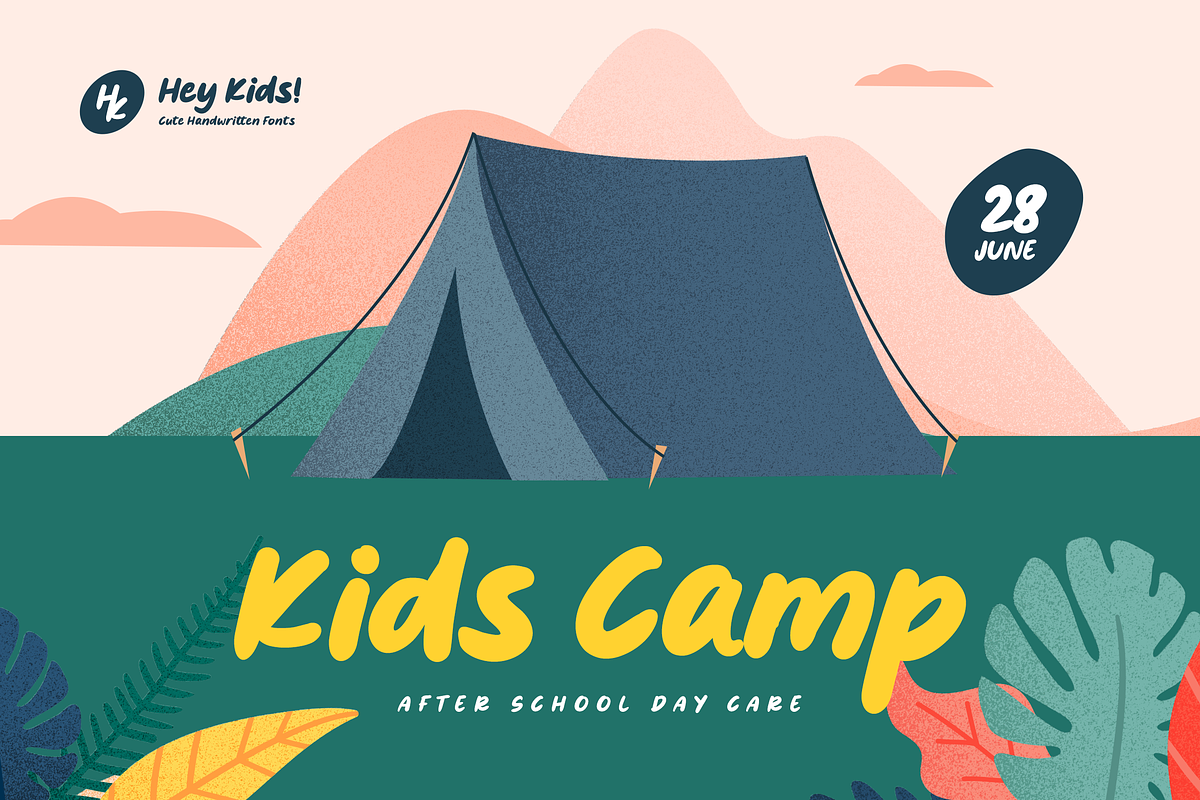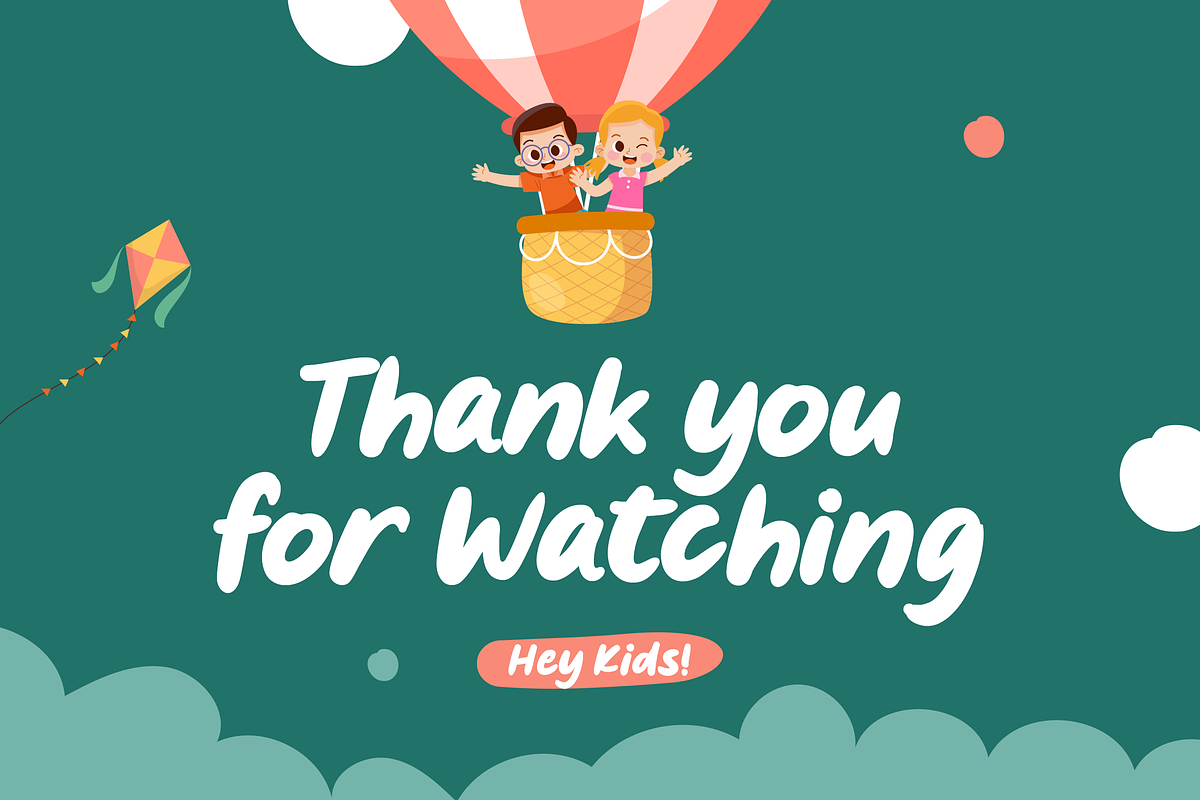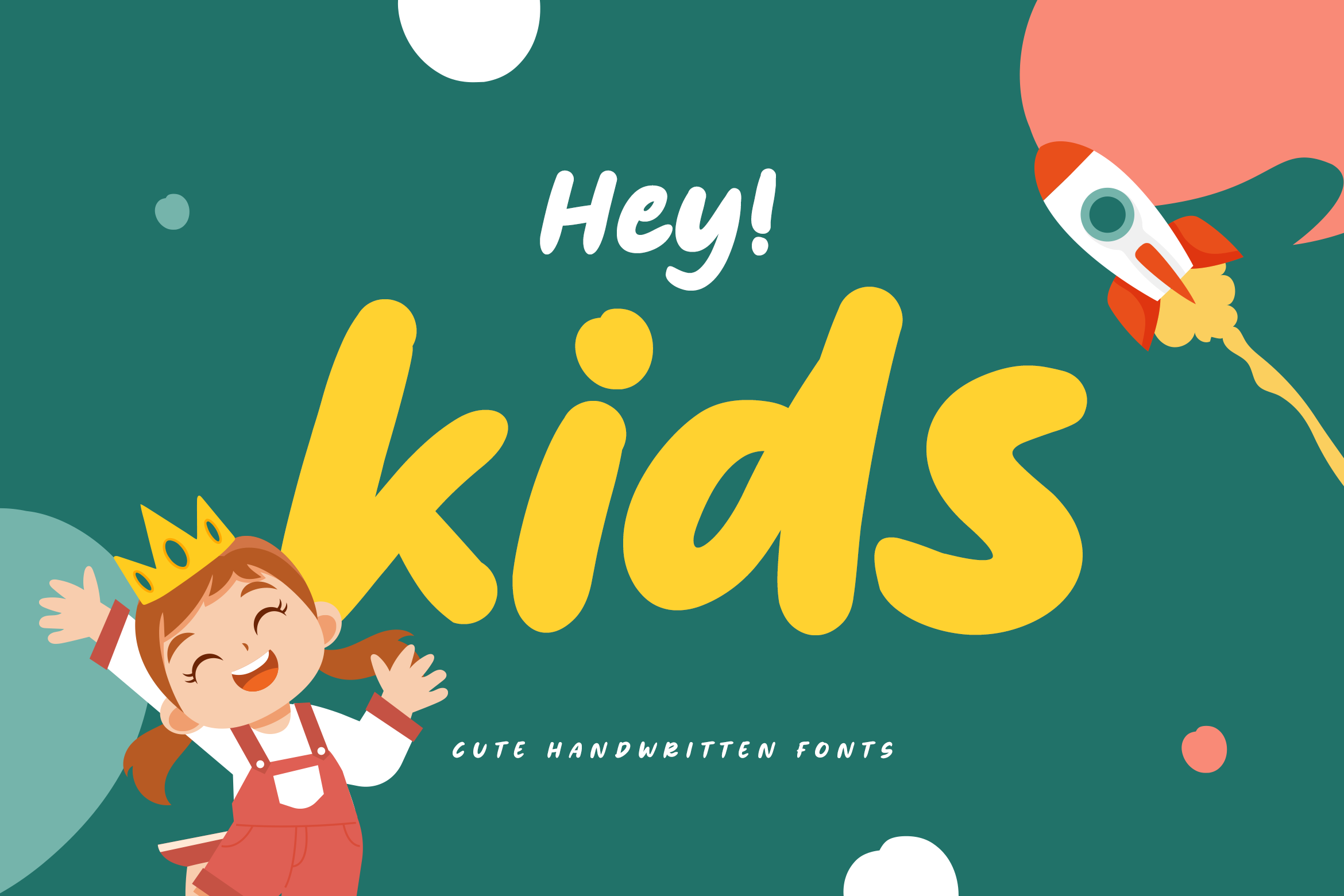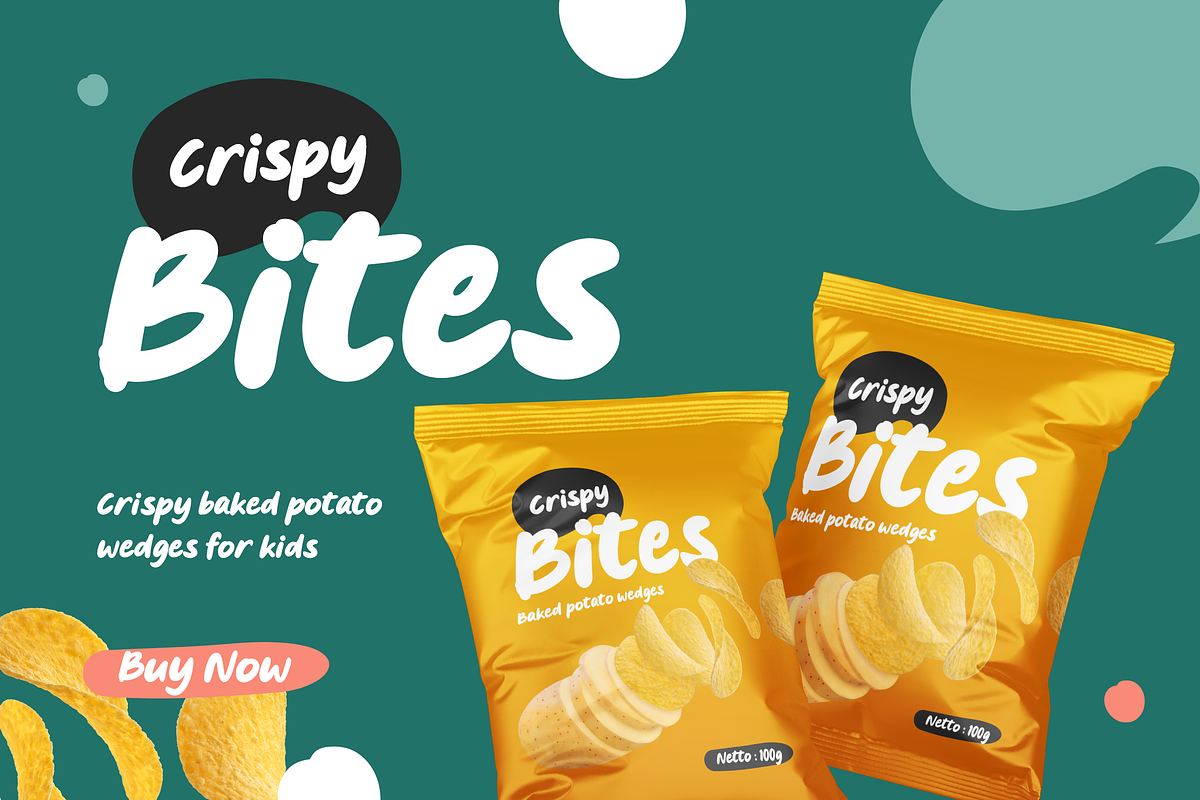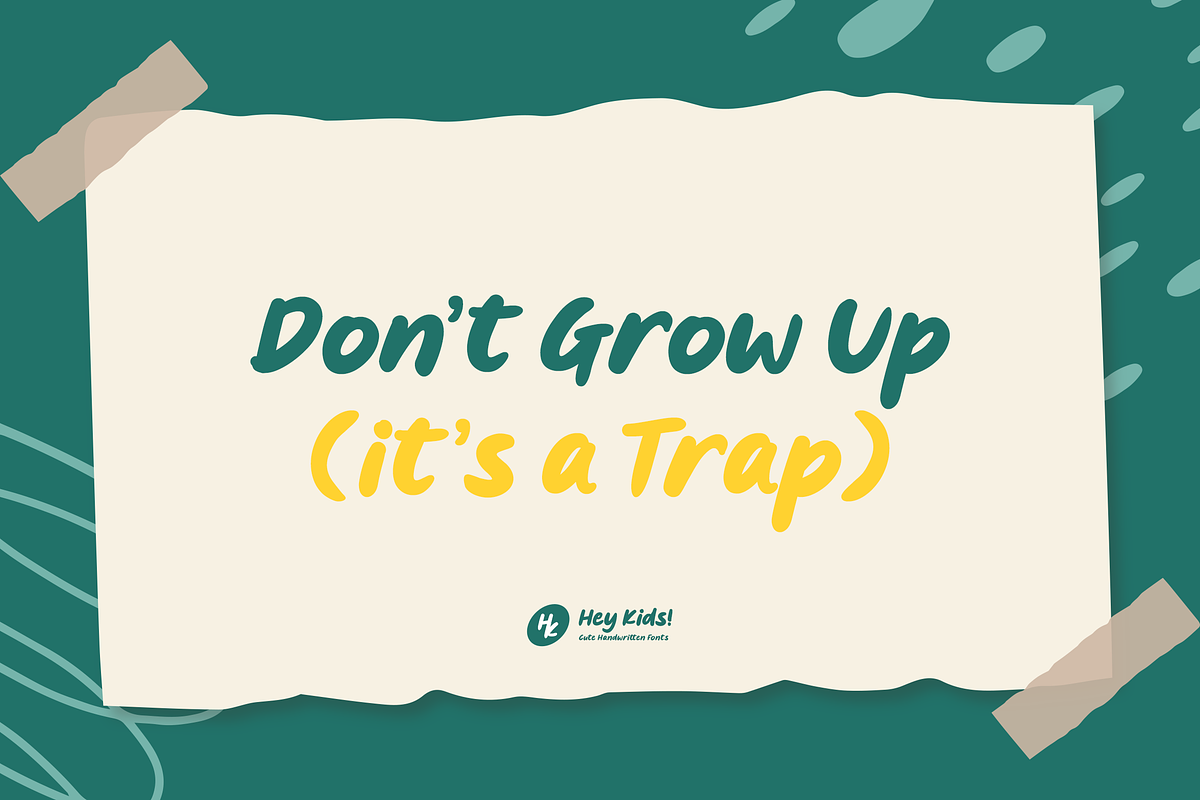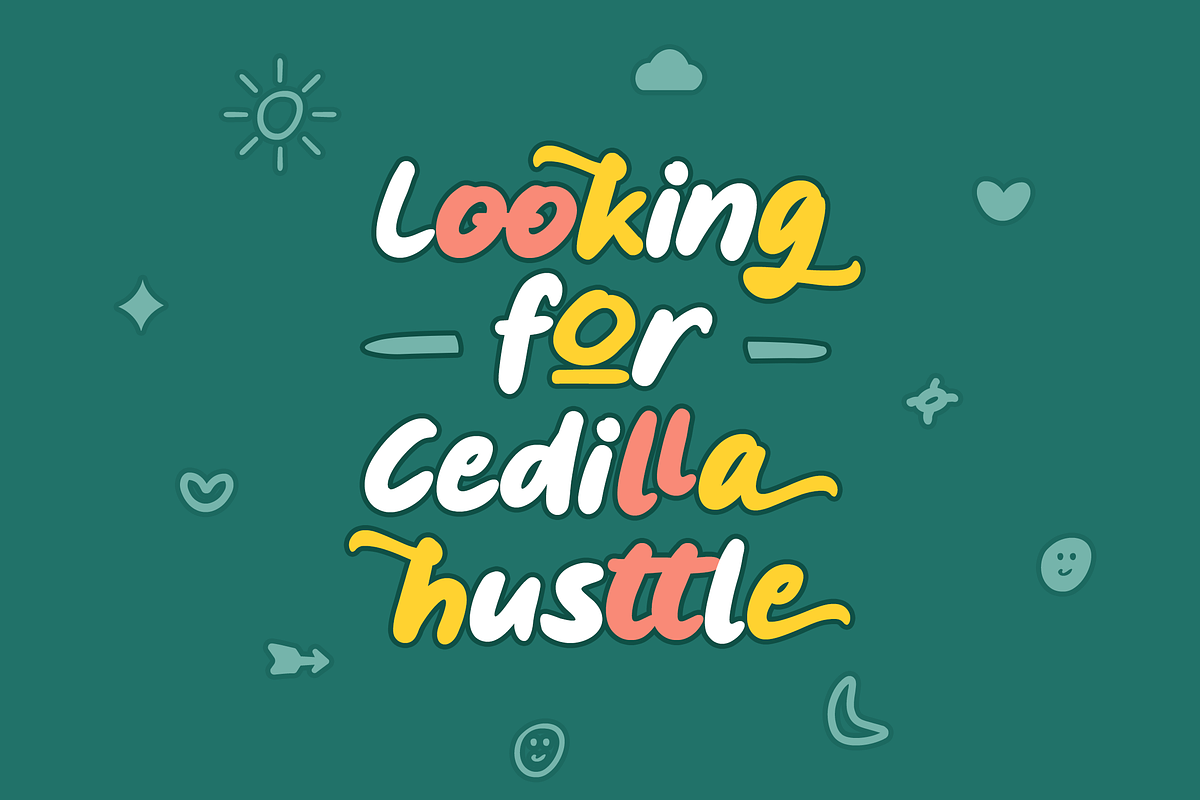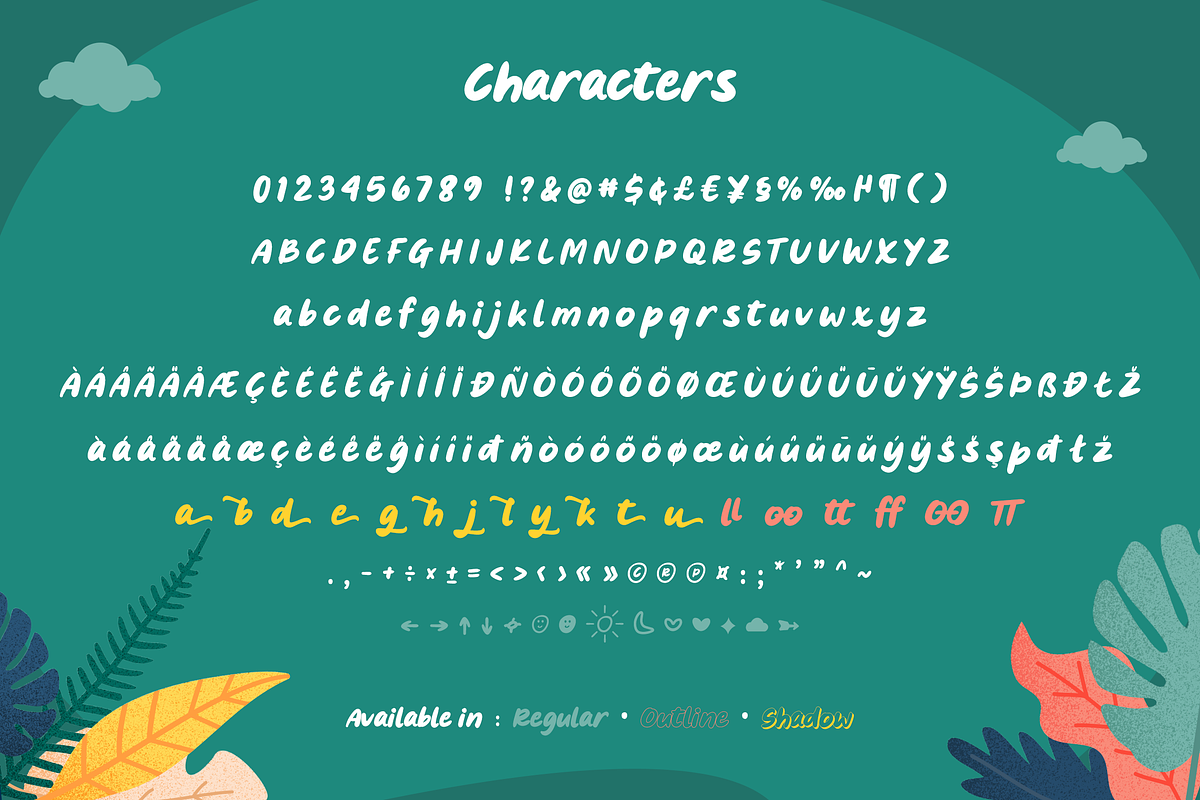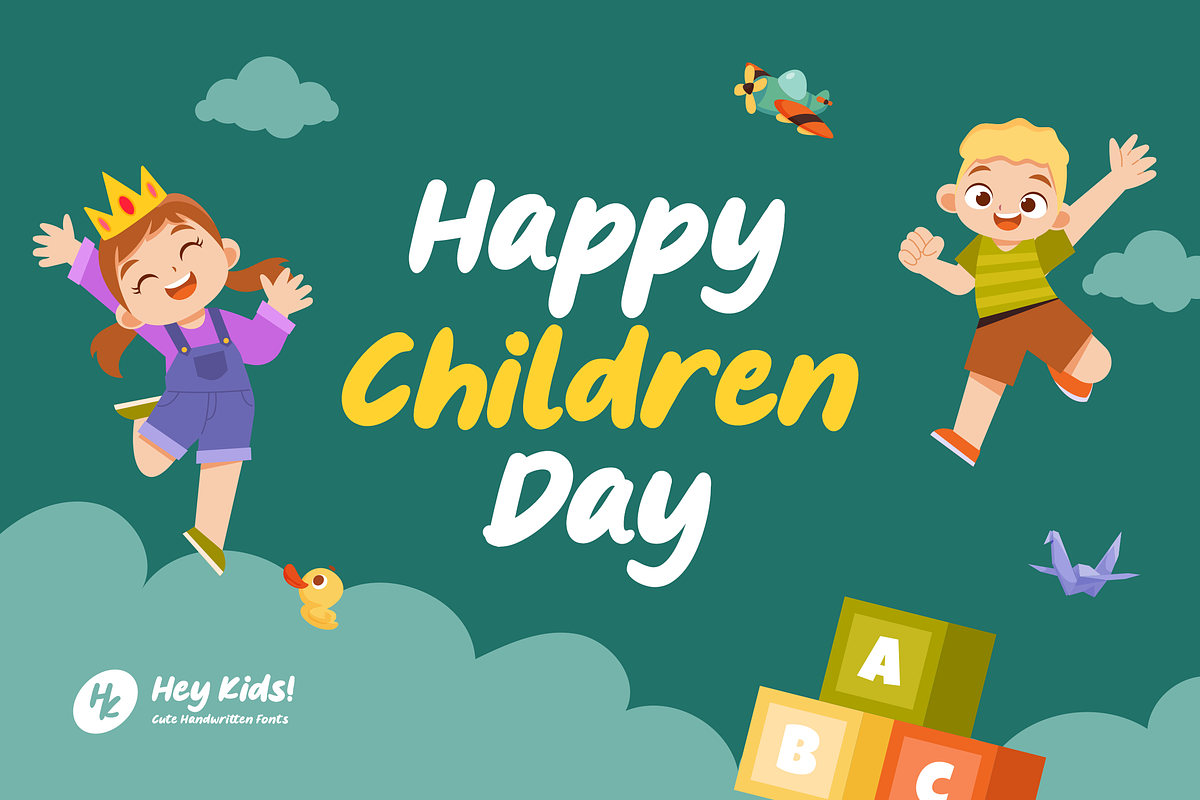
Hey Kids - Cute Handwritten Fonts
A cute handwritten font with many possible combinations. Add playful and sweet style to your designs and notice how they come to life. Comes with Alternates, Ligatures, Multilingual Support & some Cute Accents.
Suitable for t-shirt design, quotes, logo packaging, template design, or any other projects that require a playful style.